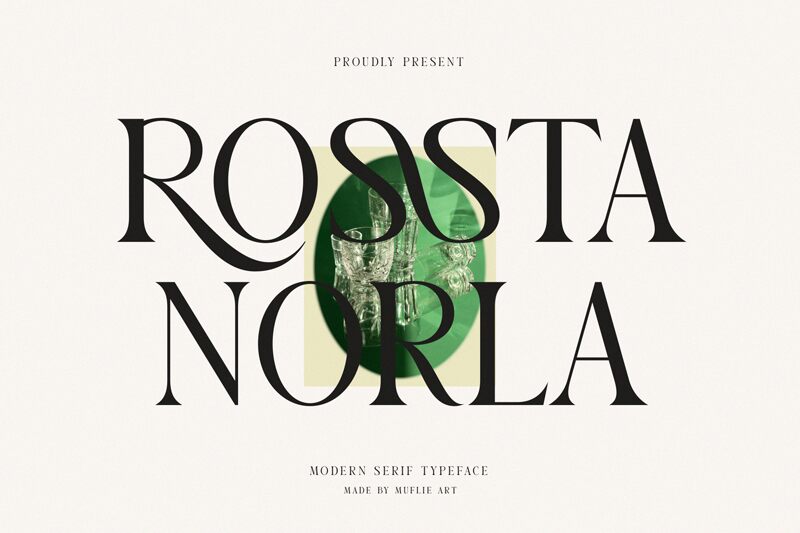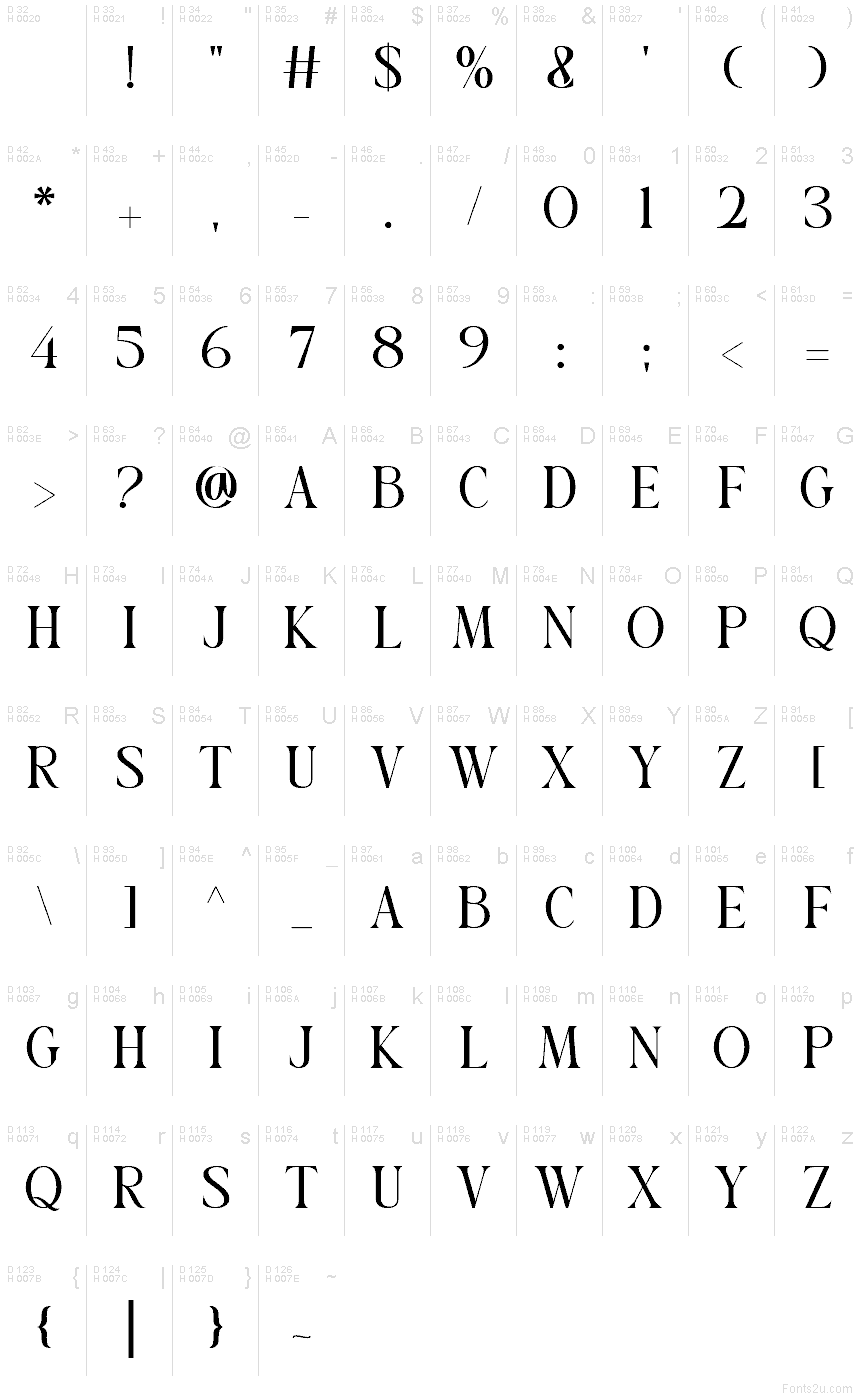
ROSSTA NORLA
Rossta norla font by Muflieart is a free serif typeface. Its signature look comes from sculpted cuts and tapered strokes that carve elegant hollows into each letter, giving headlines a lithe, glossy snap. The rhythm feels fashion-forward—sleek verticals, slender hairlines, and knife-edge serifs that catch the light like polished metal. It reads as refined without going fragile, so a few words carry surprising presence.
Using Rossta norla, you’ll get standout results in fashion editorials, boutique logos, beauty packaging, lookbooks, posters, and invitation suites. The spacing invites generous lettertracking for a cool, airy mood, while tighter settings add drama. This free font pairs beautifully with a plain grotesk or geometric sans for body copy—let Rossta norla sing on titles, keep the sans for the details.